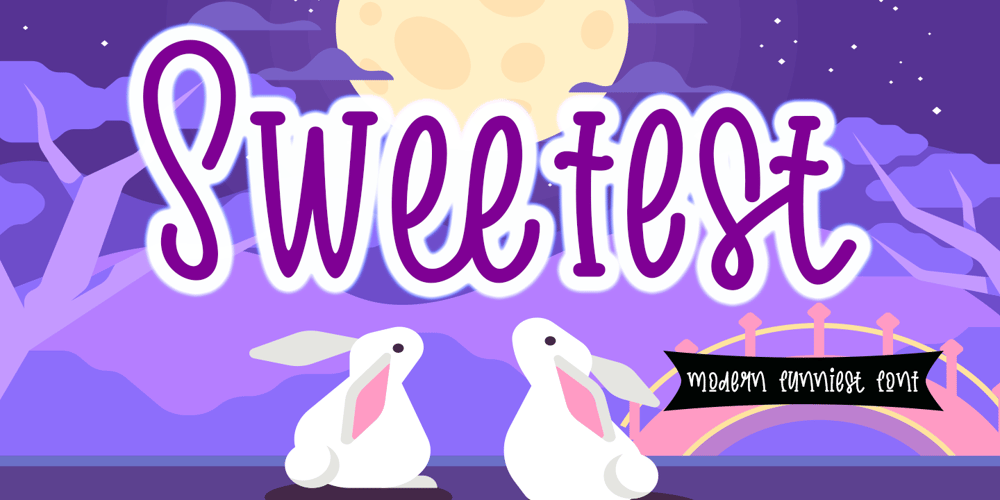
Sweetest Font Family was designed by Arief Tri Sulistiyono and published by Supersemarletter. Sweetest contains 1 styles and family package options. Sweetest is a cute and friendly handwritten font. It embodies playfulness and authenticity and is the perfect choice for any children activity or school project. Provide Ligatures with special character make the design letters looks incredible.Honestly it works perfectly for headlines, logos, posters, packaging, T-shirt and much more.Font Features :. Regular Version. Character set A-Z in Uppercase and Lowercase. Ligatures in lowercase and special. Numerals and Punctuation. Accented Characters. Multiple Languange SupportedRecomended to use in Adobe Illustrator or Adobe Photoshop with opentype feature.If you have any questions, just send me a message and I’m glad to help.